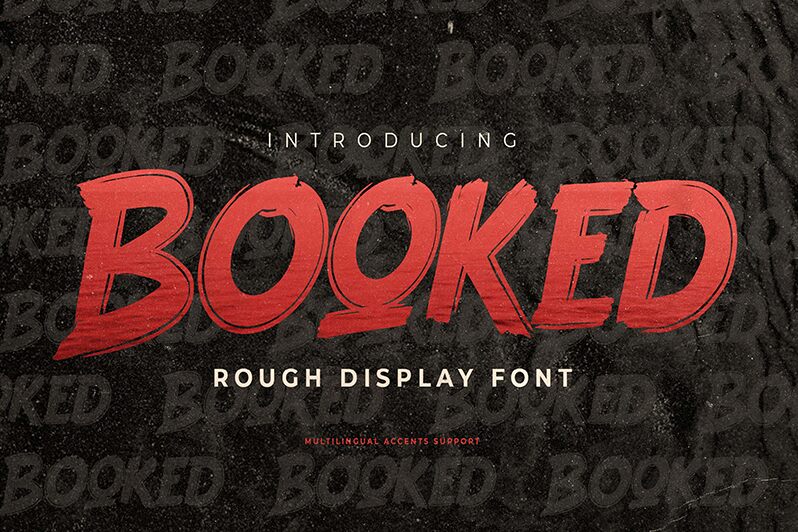
Booked font by Gassstype is a retro-inspired brush typeface with an energetic, impactful style. It features expressive strokes and a unique vintage appeal that grabs attention immediately. Ideal for headlines, Booked offers an artistic and nostalgic vibe brought to life in its edgy details.